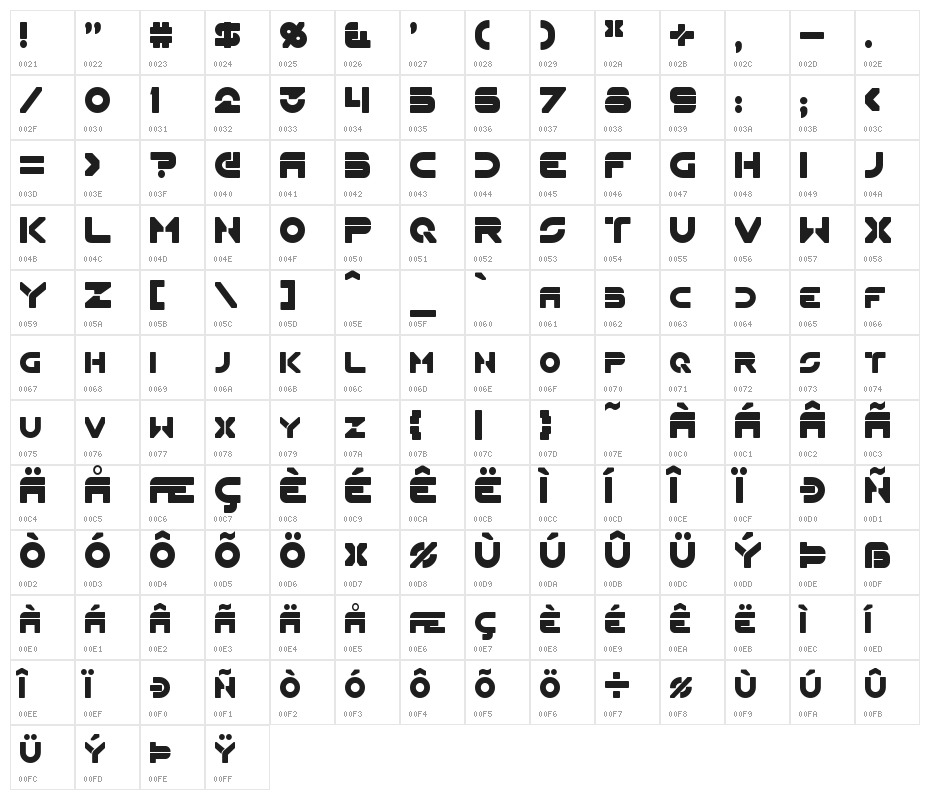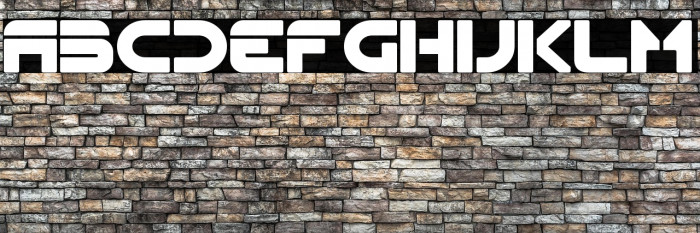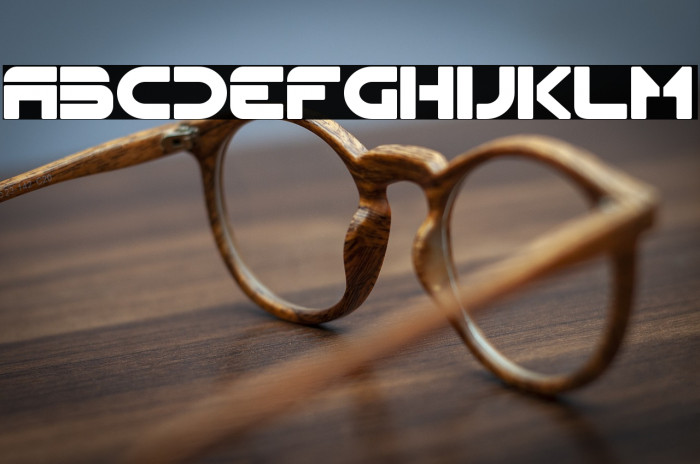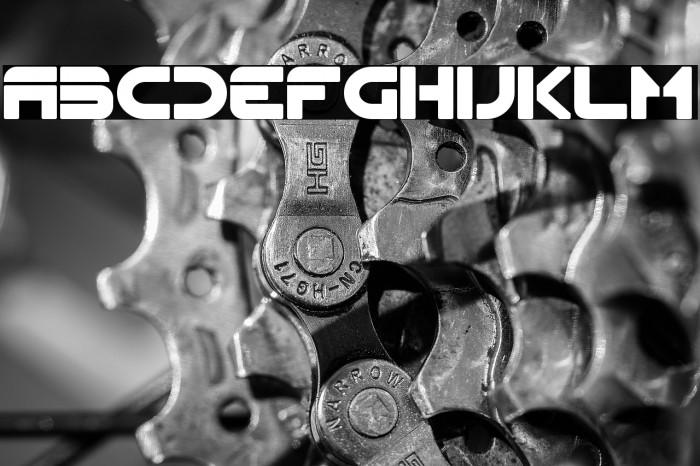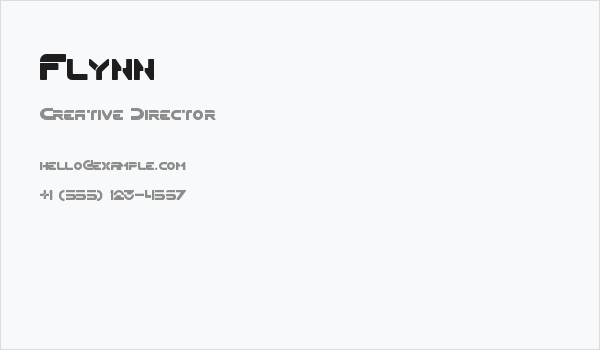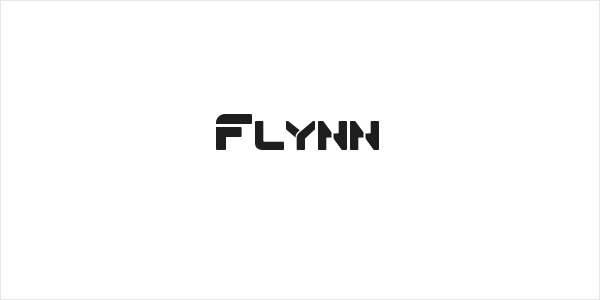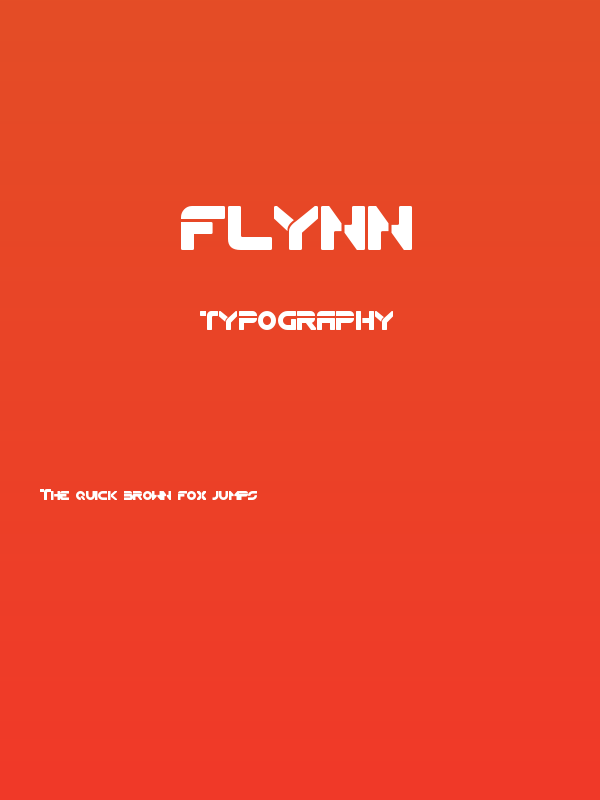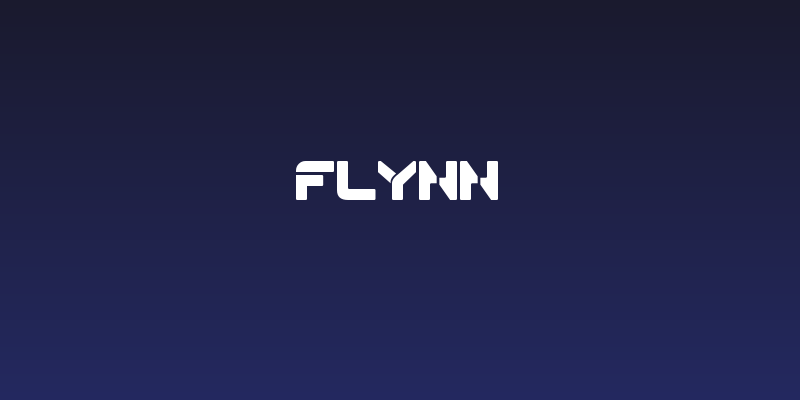
Flynn Font
Flynn Description
This font features a bold, futuristic design with geometric shapes and strong lines. Each character is constructed with a combination of straight edges and rounded corners, creating a unique and modern aesthetic. The uppercase and lowercase letters maintain a consistent style, with a focus on symmetry and balance. Numbers and special characters are designed to match the boldness and distinctiveness of the alphabet, making the font suitable for attention-grabbing headlines and logos. The overall appearance is sleek and contemporary, ideal for projects that require a modern and innovative touch.